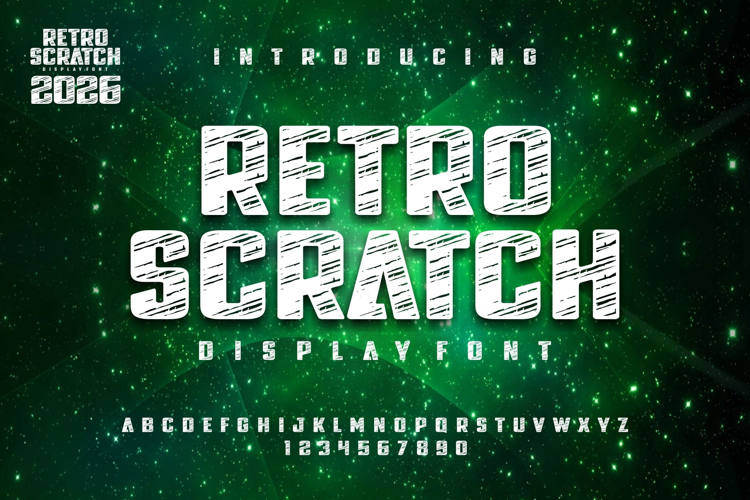
RETRO SCRATCH
Retro Scratch
This font is highly versatile for creative projects that need to feel "raw" or "energetic." It is particularly effective for:
• Apparel Design: T-shirts, hoodies, and streetwear branding.
• Sports & Fitness: Gym logos, team posters, or athletic event banners.
• Gaming & YouTube: Eye-catching thumbnails or title screens for action-oriented content.
• Retro Marketing: Posters or flyers that need a "vintage-cool" or "urban" atmosphere.
This is a bold, sans-serif display font characterized by a heavy "industrial" weight and a unique hand-sketched texture.
The most striking feature is the internal pattern of diagonal, white scratch marks that simulate a "chalkboard" or "worn-out rubber stamp" effect.